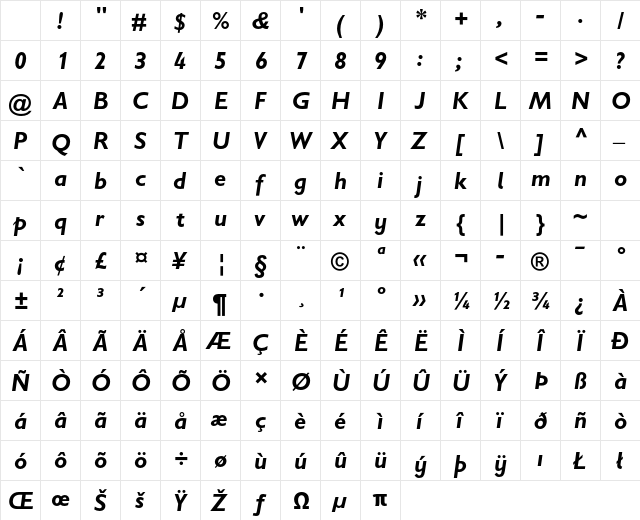
Complete Gill Sans Infant Std Bold It glyph index. Displaying only characters natively supported by Gill Sans Infant Std Bold It font.
Gill Sans Infant Std is a composed and adaptable typeface that performs quietly and consistently across a wide range of design contexts. Its bold stroke weight gives it real presence on the page.